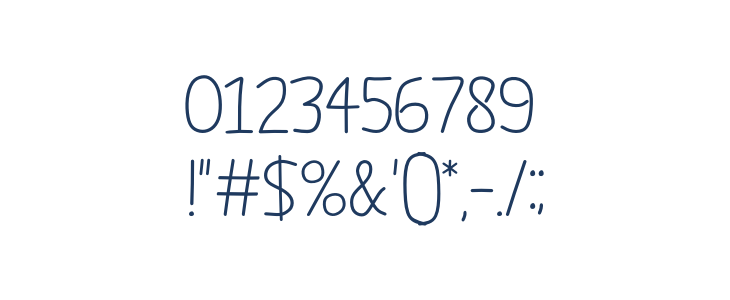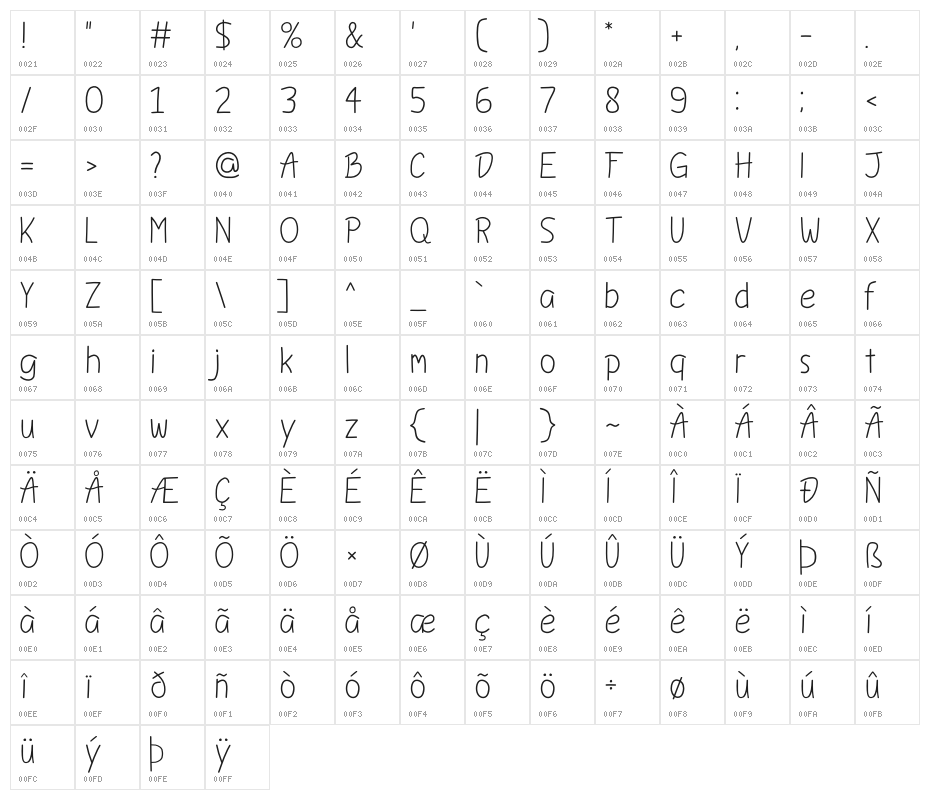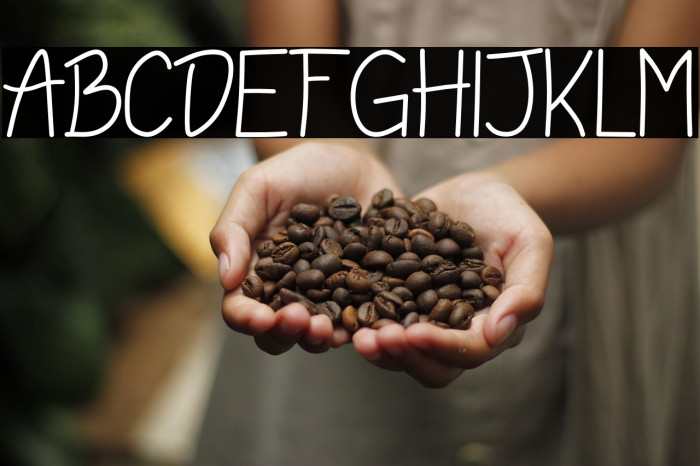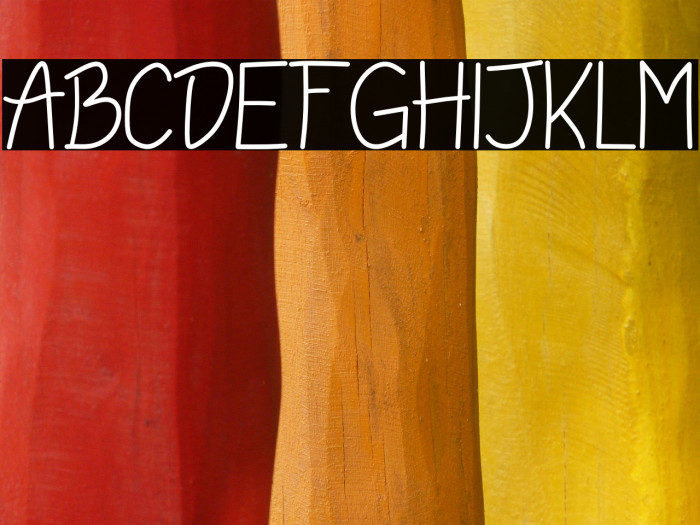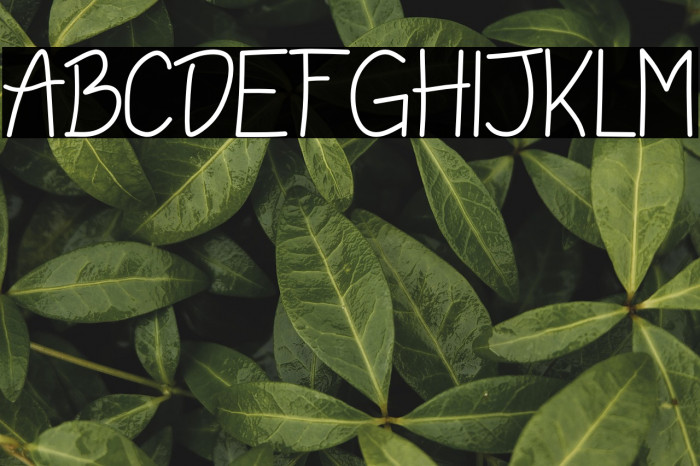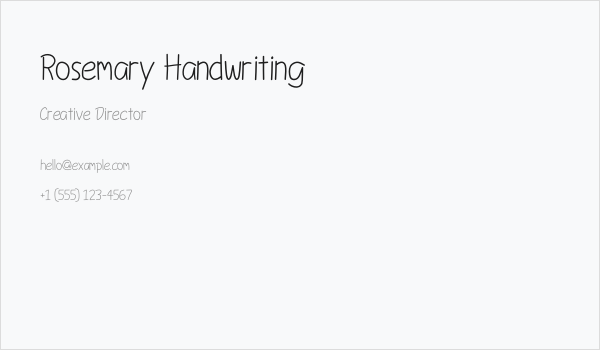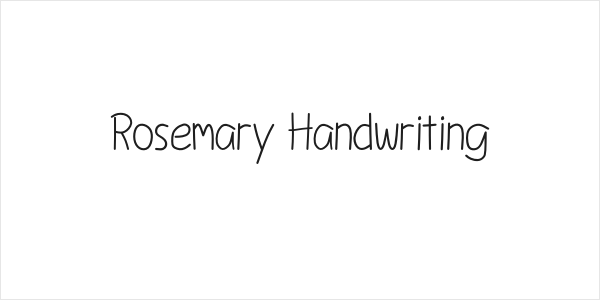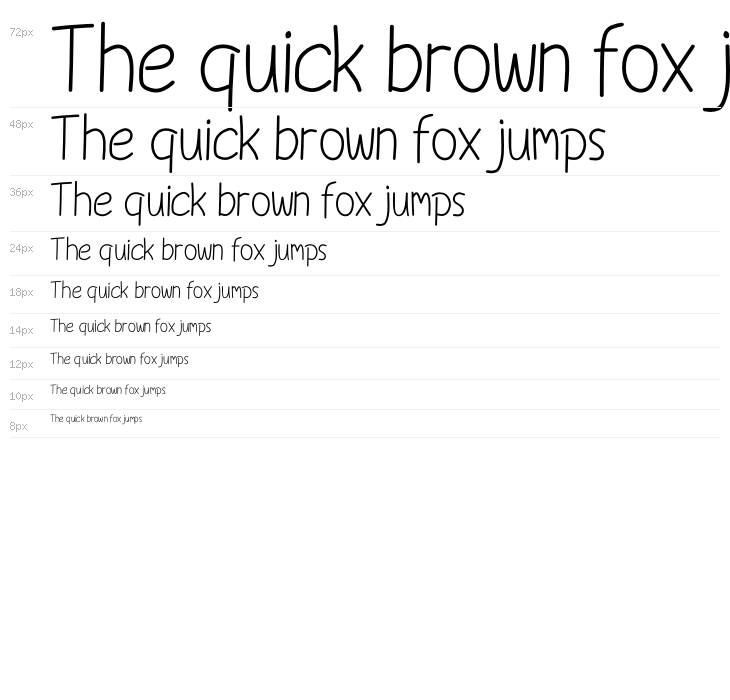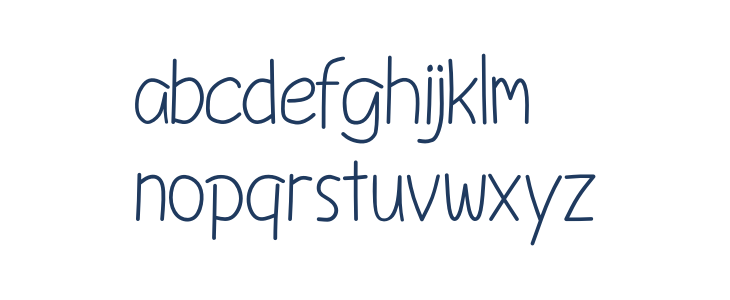
Rosemary Handwriting Font
Rosemary Handwriting Description
This font features a playful and casual handwritten style, characterized by its smooth, flowing lines and slightly irregular shapes. The letters are tall and slender, with a consistent stroke width that gives it a clean and approachable appearance. The uppercase letters are slightly larger than the lowercase, maintaining a harmonious balance. The numerals and special characters follow the same style, ensuring uniformity across all characters. This font exudes a friendly and informal vibe, making it ideal for projects that require a personal touch.
| Use Case | Headlines, Personal notes, Invitations |
| Proposed Projects | Ideal for greeting cards, personal notes, invitations, and casual branding projects. |